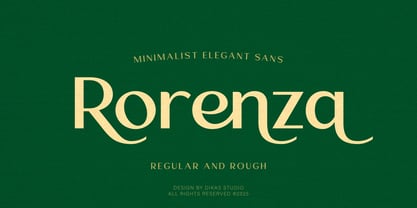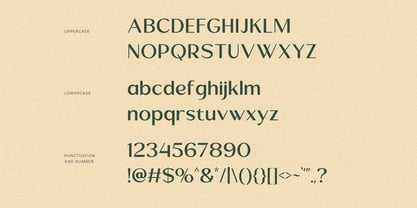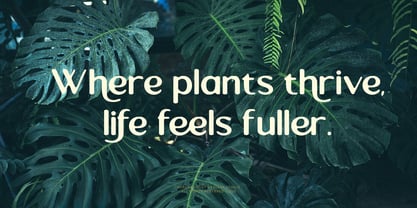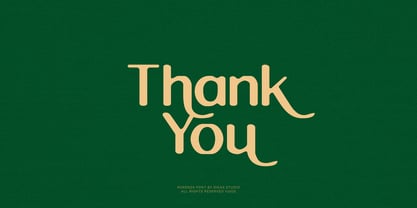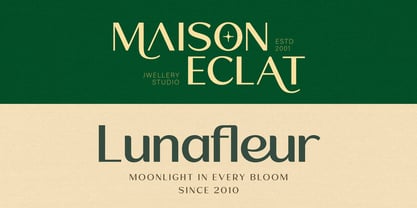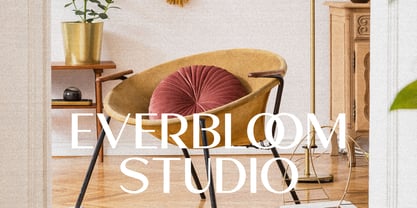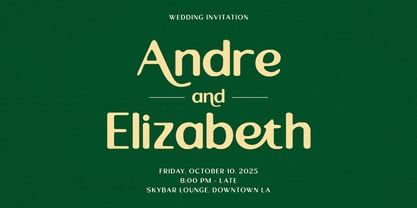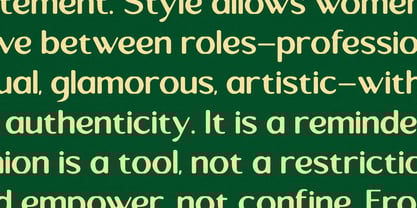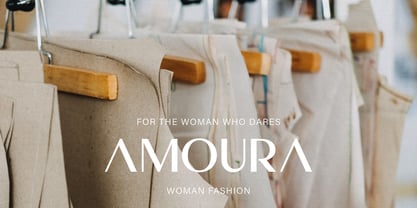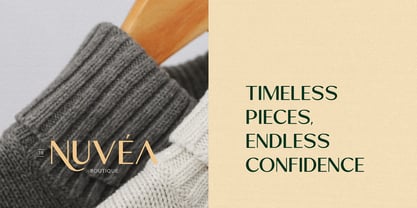
Rorenza
by Dikas Studio
The Rorenza Font Family was designed by Andika Setiawan and published by Dikas Studio. Rorenza contains 2 styles and family package options. More about this family
Reorenza is an elegant sans serif font that blends modern simplicity with refined curves. Designed for versatility, it looks stunning in logos, headlines, posters, and editorial layouts. Its clean structure and balanced spacing ensure perfect readability across all sizes and media. Available in Regular and Rough styles, Reorenza gives you creative freedom — from polished modern designs to those with a handcrafted touch. This modern sans serif typeface is ideal for branding projects that aim for a timeless, sophisticated look.
Designers: Andika Setiawan
Foundry: Dikas Studio